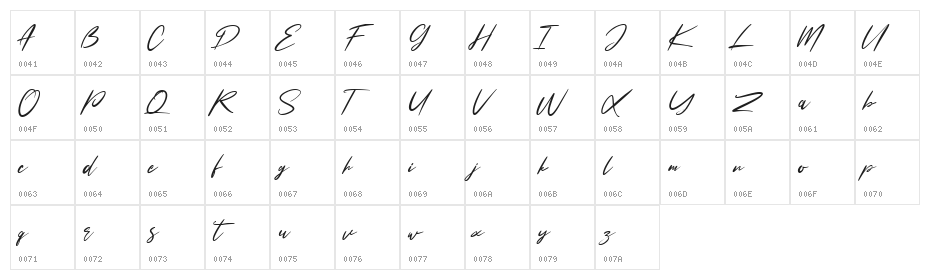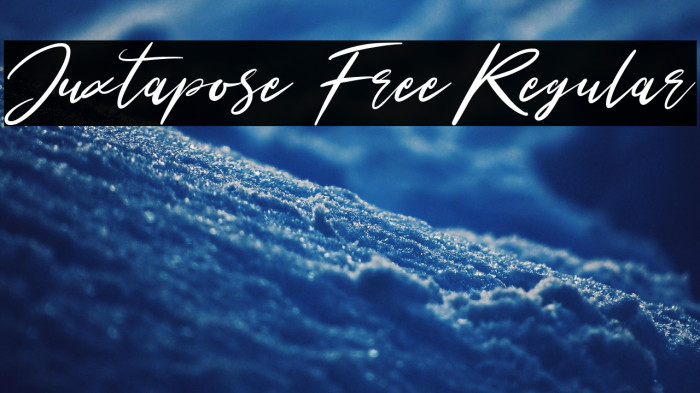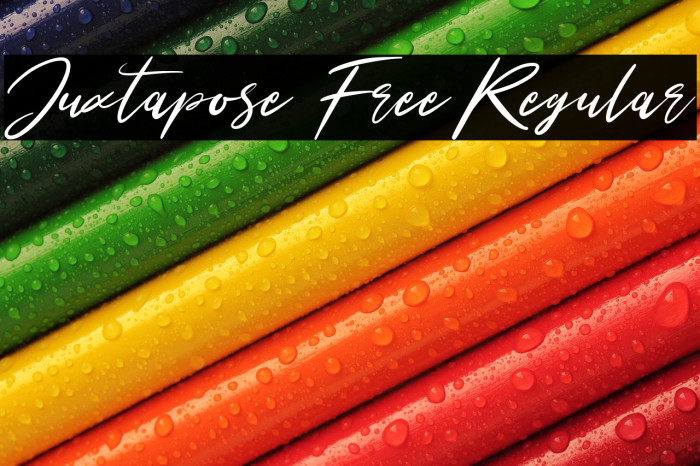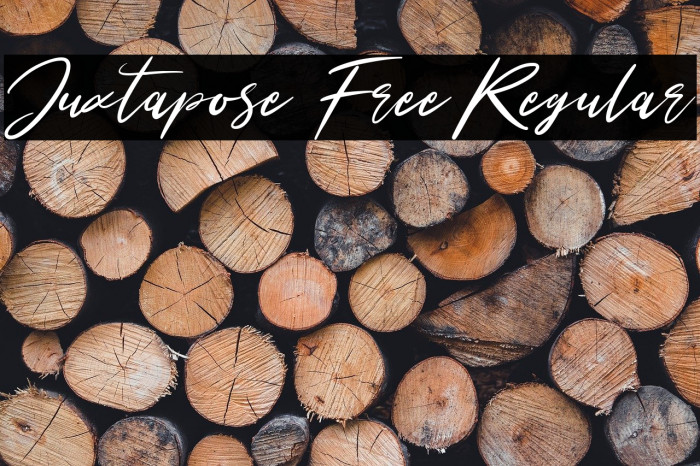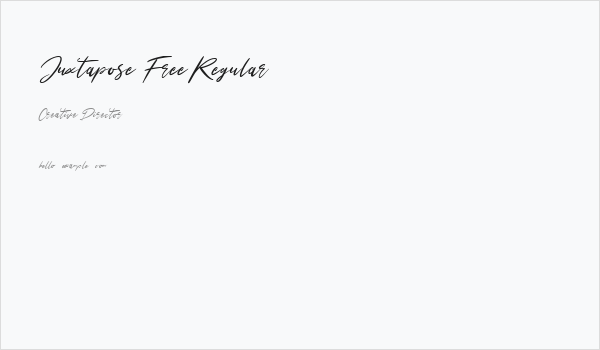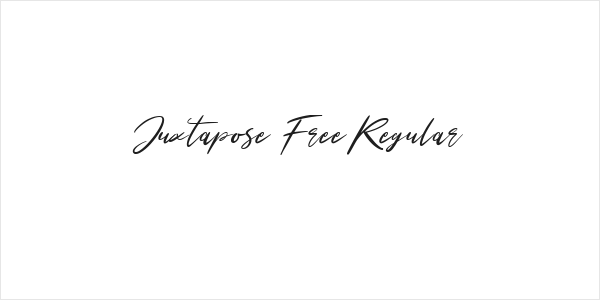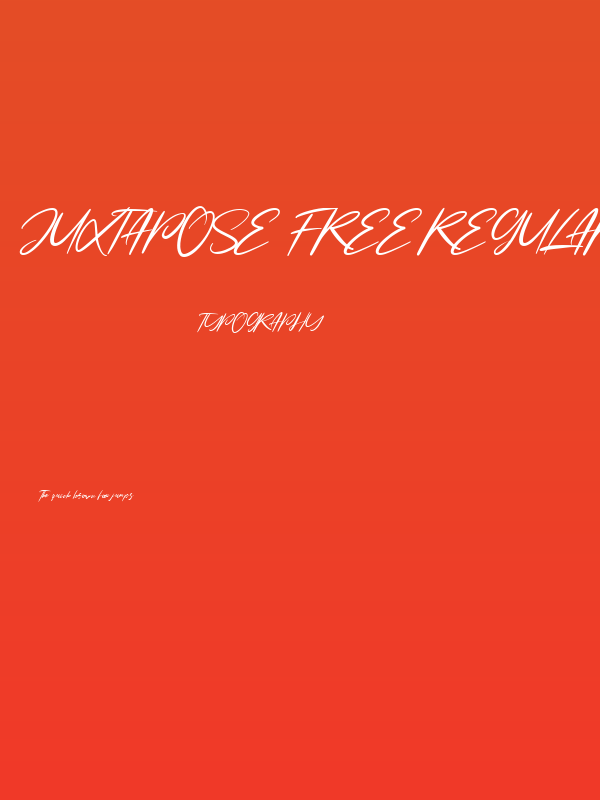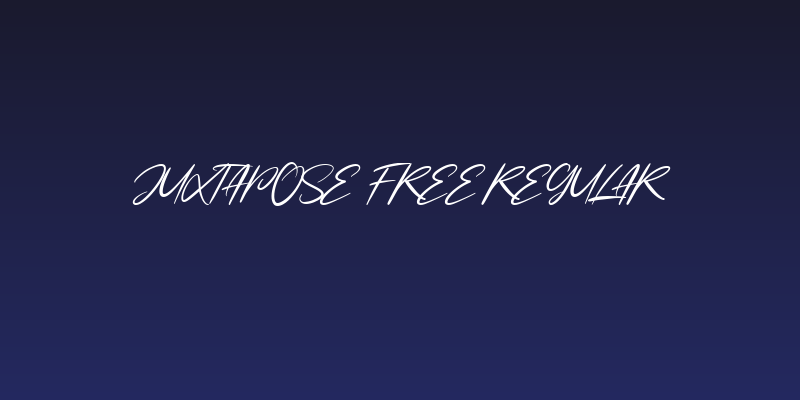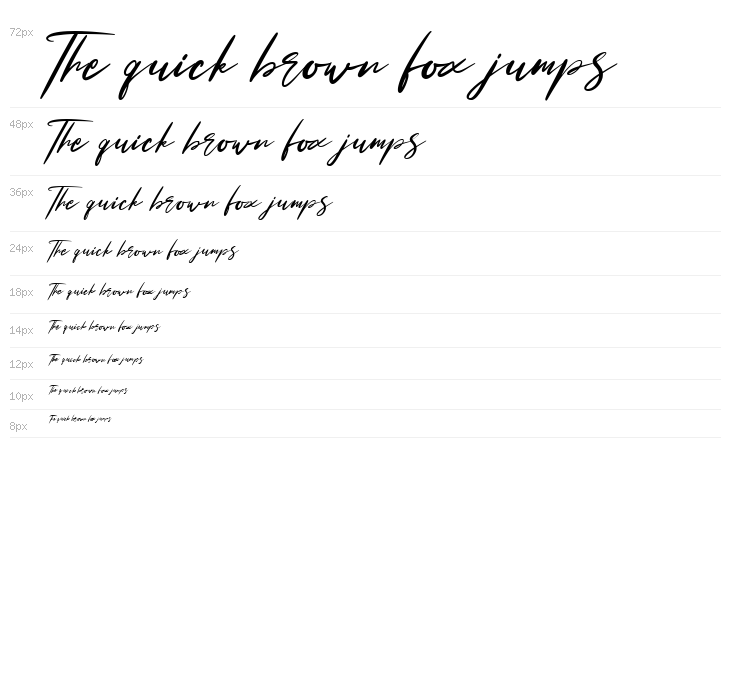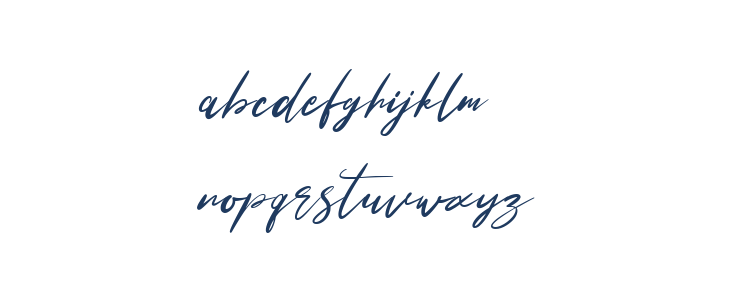
Juxtapose Free Regular Font
Juxtapose Free Regular Description
This font features a dynamic and flowing script style that exudes elegance and sophistication. The characters are interconnected with smooth, sweeping curves, giving it a handwritten appearance. The uppercase letters are bold and prominent, while the lowercase letters maintain a consistent fluidity. The font's design is both modern and classic, making it versatile for various applications. Its high contrast in stroke thickness adds to its visual appeal, making it suitable for eye-catching designs. The spacing between characters is tight, enhancing the cohesive look of the text.
| Proposed Projects | Ideal for wedding invitations, branding, logos, and elegant packaging designs. |